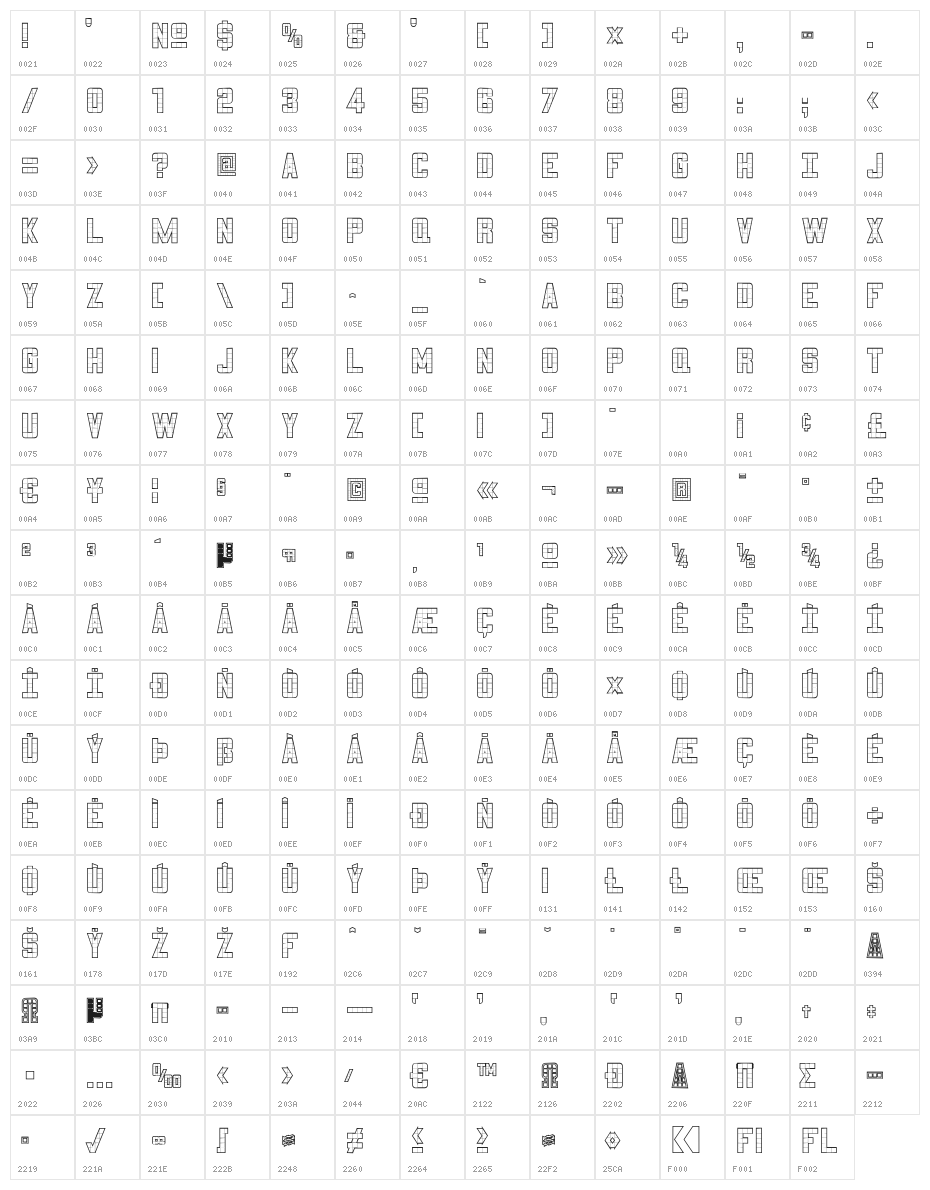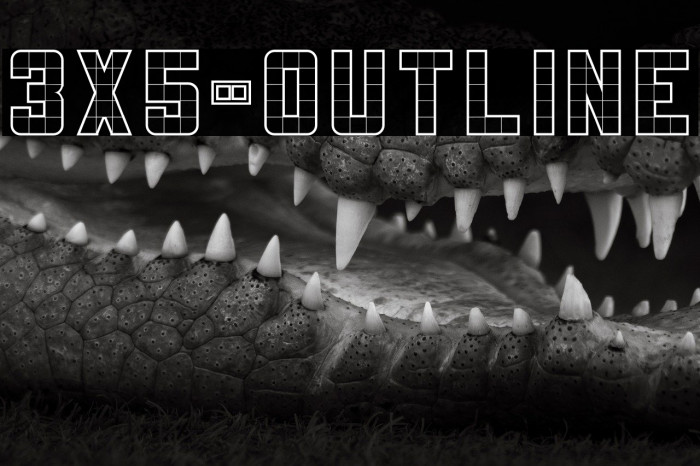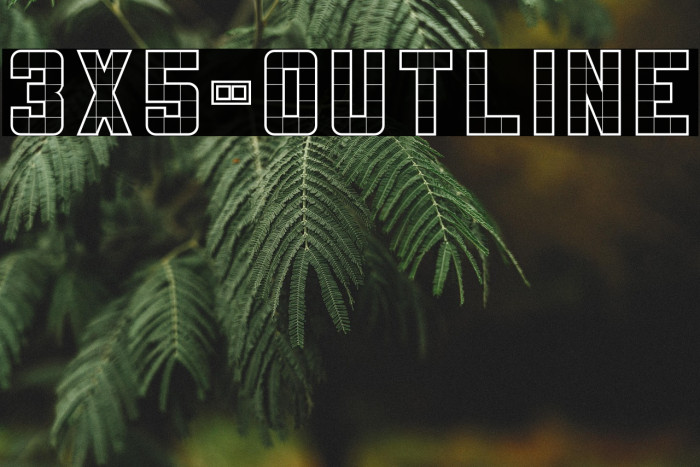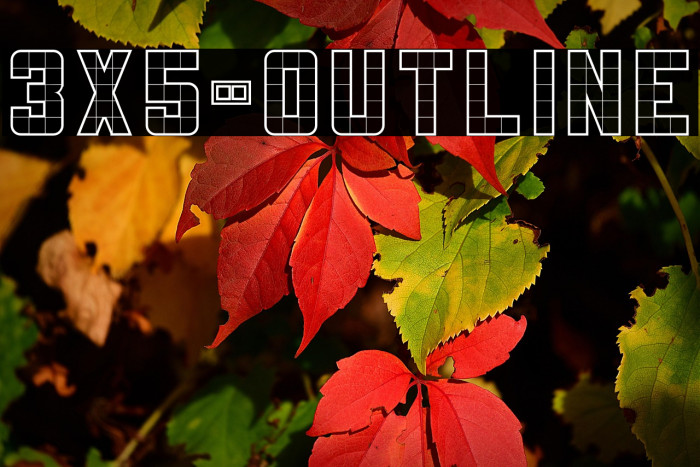
3x5-Outline Font
3x5-Outline Description
This font features a unique grid-based outline style, where each character is constructed with a series of intersecting lines forming a distinct geometric pattern. The uppercase and lowercase letters, as well as numbers and special characters, maintain a consistent structure, giving the font a cohesive and modern appearance. The grid design adds a layer of complexity and visual interest, making it stand out in various design contexts. The characters are evenly spaced, ensuring readability while maintaining the decorative aspect of the font. This style is particularly suitable for projects that require a futuristic or tech-inspired aesthetic.
| Proposed Projects | Ideal for tech-themed designs, digital art, posters, and branding that require a modern and distinctive look. |